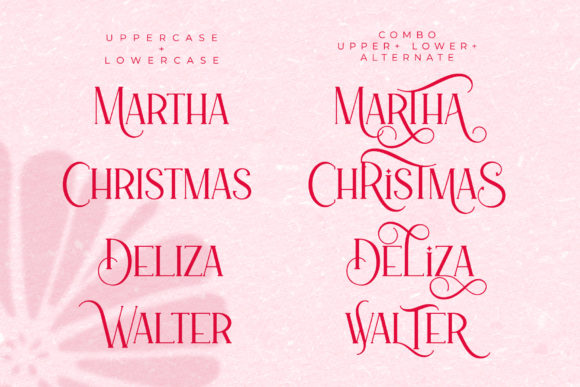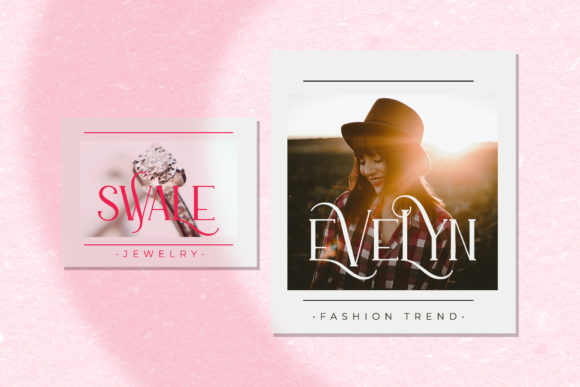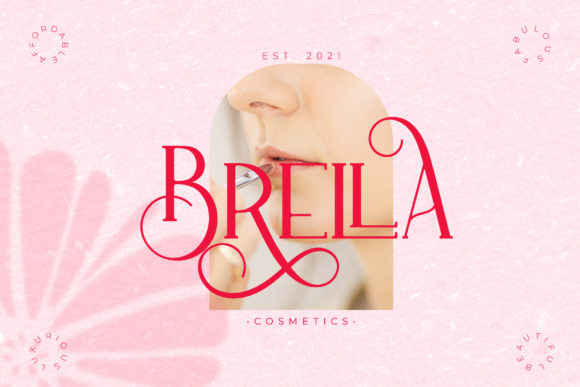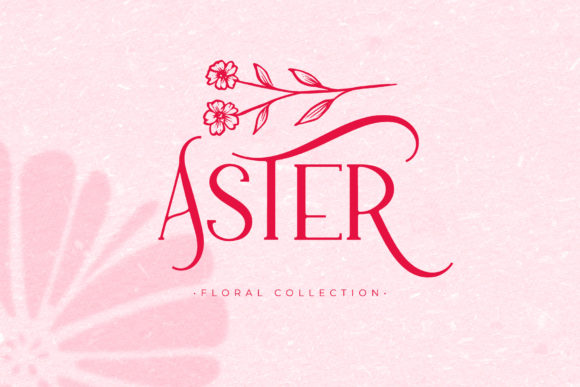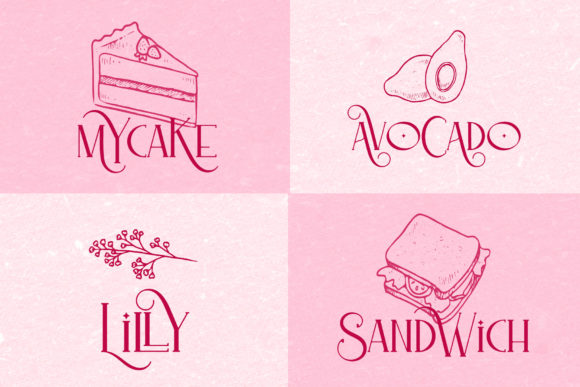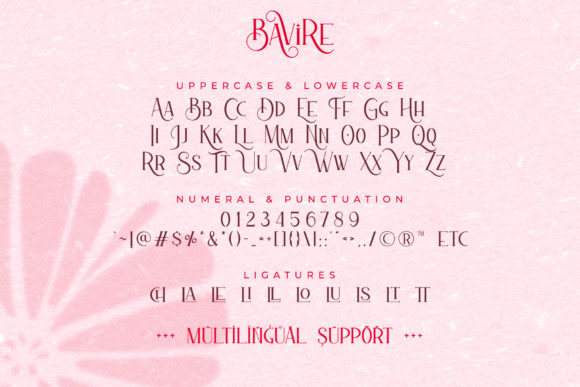
Have you ever stared at a blank page, struggling to find the perfect font to bring your design to life? I know I have. It’s that moment when the creative wheels start turning, and you begin to envision the perfect typography to match your vision. It’s a feeling of excitement and anticipation, knowing that the right font can make all the difference.
Enter the Bavire Font, a stunning serif font designed to elevate your projects and leave a lasting impression. With its elegant and stylish design, Bavire Font is the perfect addition to any design project. Its PUA encoding ensures that you can access all of the glyphs and swashes with ease, giving you complete control over the final result.
As a designer, you know the value of a well-chosen font. It’s not just about aesthetics; it’s about conveying the message and emotion behind your design. The Bavire Font is a valuable tool in your creative arsenal, and with its versatility and style, it’s sure to become a go-to choice for your next project.
Bavire Font Key Features
- Unique Characteristics: The Bavire font features a unique, hand-drawn design with a mix of modern and vintage elements, making it suitable for various design projects.
- Language Support: The font supports a wide range of languages, including Latin, Cyrillic, and Greek scripts.
- Font Style: The Bavire font is available in a single style, but it can be used to create various effects by adjusting the font size, color, and spacing.
Bavire Font Review
- The Bavire Font has a unique and stylish aesthetic that can add a touch of sophistication to any design project.
- It’s highly customizable, making it a great choice for designers who like to experiment with different typography settings.
- The font includes a wide range of weights, from light to bold, which can help create visual interest and hierarchy in a design.
- The Bavire Font may not be the best choice for body text, as it can be a bit too ornate and may be difficult to read at small sizes.
- The font’s unique style may not appeal to every designer or project, so it’s essential to use it thoughtfully and consider the context.
The Bavire Font is a solid choice for designers who want to add a touch of elegance and sophistication to their projects. While it may have some limitations, its unique style and customizability make it a great addition to any designer’s toolkit.
Tips for Getting the Most Out of Bavire
Experiment with different font sizes and colors to create contrast and visual interest. Use Bavire in combination with other fonts to add depth and variety to your designs.
Bavire is ideal for:
- Text overlays and graphics
- Print and digital media
Alternatives to Bavire Font for Designers
Great Vibes Font is a modern, elegant script font perfect for creating a sophisticated and stylish look. It’s ideal for use in logos, branding, and invitations. When to use: Formal events, luxury brands, and high-end marketing materials.
Comparison to Bavire Font: Great Vibes Font has a more refined and polished appearance, while Bavire Font has a bolder and more rustic feel. Great Vibes Font is suitable for a wider range of applications, including formal invitations and luxury branding.
Pacifico Font is a beautiful, cursive font that evokes a sense of relaxation and calmness. It’s perfect for use in creative projects, such as book covers, magazine layouts, and website headers. When to use: Beach-themed projects, travel websites, and wellness brands.
Comparison to Bavire Font: Pacifico Font has a more laid-back and casual feel, while Bavire Font has a bolder and more dramatic appearance. Pacifico Font is ideal for projects that require a soothing and calming atmosphere.